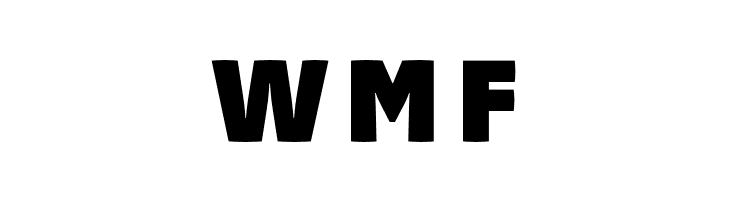
A bold, playful script font with flowing, cursive letterforms.
A whimsical and flowing handwritten font with elegant, elongated letterforms.
A vibrant, cursive script font inspired by neon signage.
A futuristic, geometric font with sharp angles and a bold presence.
A futuristic, angular italic font with a dynamic and modern style.
An abstract, doodle-like font with unique, artistic characters.
A cursive, handwritten font with elegant, flowing strokes.
Expressive handwritten font with fluid, cursive strokes.
A playful, handwritten font with tall, narrow letters and a casual style.
A bold, modern font with thick, uniform strokes and a geometric style.
A bold, modern sans-serif font with strong, clean lines.
A bold, italic font with a modern and dynamic style.
A modern, geometric sans-serif font with uniform stroke width and rounded edges.
A modern, slightly italic font with a clean and professional style.
A modern, light sans-serif font with a sleek and balanced design.
A sleek, modern, and slightly italic font with a minimalist design.
A modern sans-serif font with a clean, balanced, and slightly condensed style.
A modern, slightly italicized font with a sleek and professional appearance.
A modern, thin sans-serif font with a sleek and minimalist design.
A sleek, thin, and slightly italicized modern font with low contrast.
A bold, condensed font with a modern and impactful design.
A modern, condensed sans-serif font with a sleek and professional appearance.
A modern, condensed sans-serif font with a light and airy appearance.
A modern, condensed sans-serif font with bold, uniform strokes.
A sleek, modern, and condensed font with thin strokes and excellent legibility.
A bold, rounded font with a modern and impactful style.
Bold, italicized font with a strong, modern presence.
A bold, modern font with rounded edges and consistent stroke width.
A bold, italic font with smooth curves and a dynamic style.
A bold, blocky font with rounded edges and a strong, impactful presence.
A bold, rounded font with thick, uniform letterforms ideal for impactful headlines.